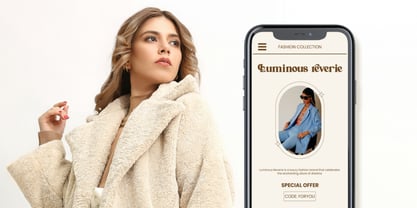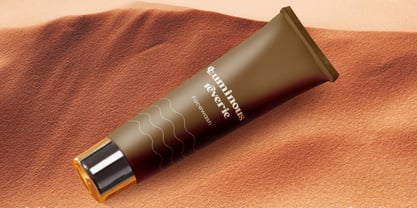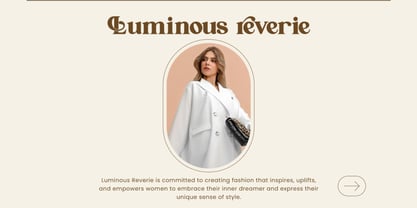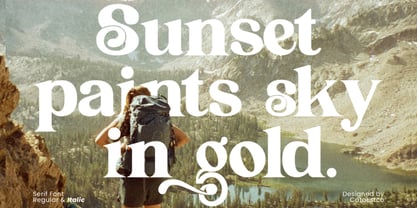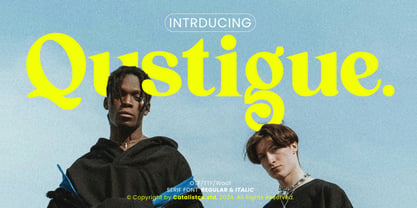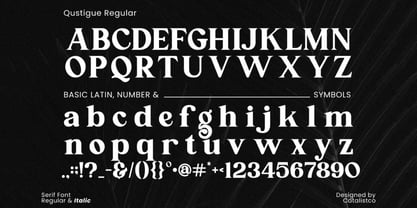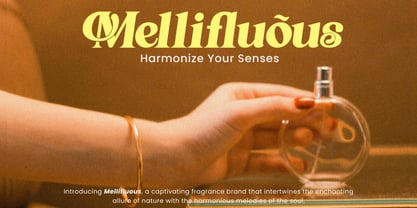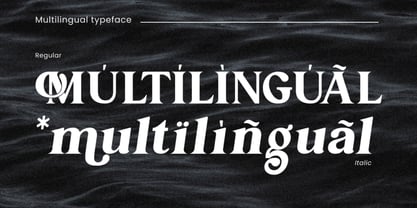
Qustigue
The Qustigue Modern Serif Font is a stylish and expressive typeface that fuses contemporary elegance with classic serif sophistication. Defined by high contrast strokes, subtle curves, and artistic terminals, it offers a bold yet refined personality — perfect for branding, editorial layouts, fashion campaigns, and creative headlines. Featuring complete uppercase and lowercase letters, numerals, punctuation, multilingual characters, and both Regular and Italic styles, it provides flexibility for professional use. Whether used for luxury brand identities, magazines, or digital media, Qustigue Font delivers confident modernity and timeless typographic charm.